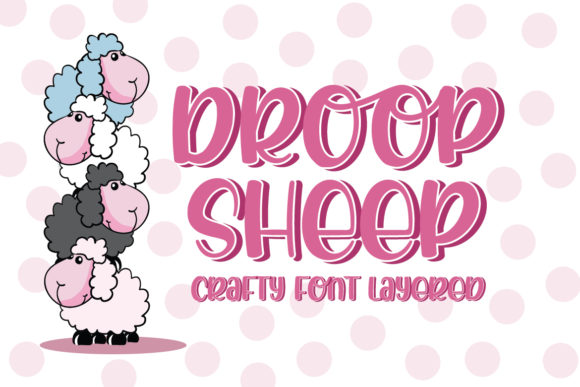
Droop Sheep Font
Introducing Droop Sheep Font, the captivating display font that injects a burst of playful charm into your designs. Created by the talented Almeera Studio, this font family exudes a captivating personality that is sure to leave a lasting impression.
With its whimsical and lighthearted style, Droop Sheep Font adds a touch of delight to any creative project. Its playful curves and bouncy characters evoke a sense of joy and amusement, making it perfect for designs targeting a younger audience or those looking to add a touch of whimsy to their work.
Whether you're a seasoned graphic designer or a creative enthusiast, Droop Sheep Font is the perfect choice for a wide range of projects. Its versatility shines through in logos, branding, posters, social media graphics, and even children's book illustrations. Its charming demeanor effortlessly captures attention, making it the perfect font to make your designs stand out from the crowd.
Dive into the world of Droop Sheep Font and let your creativity soar. Embrace its playful spirit and see how it transforms your designs into captivating works of art. Its unique charm is sure to resonate with audiences of all ages, leaving them grinning with delight.
Unlock the full potential of Droop Sheep Font today and embark on a creative journey filled with joy and laughter. Its playful personality is an inspiration to let loose and explore your imagination. Embrace the magic of Droop Sheep Font and watch as your designs blossom with playful charm.